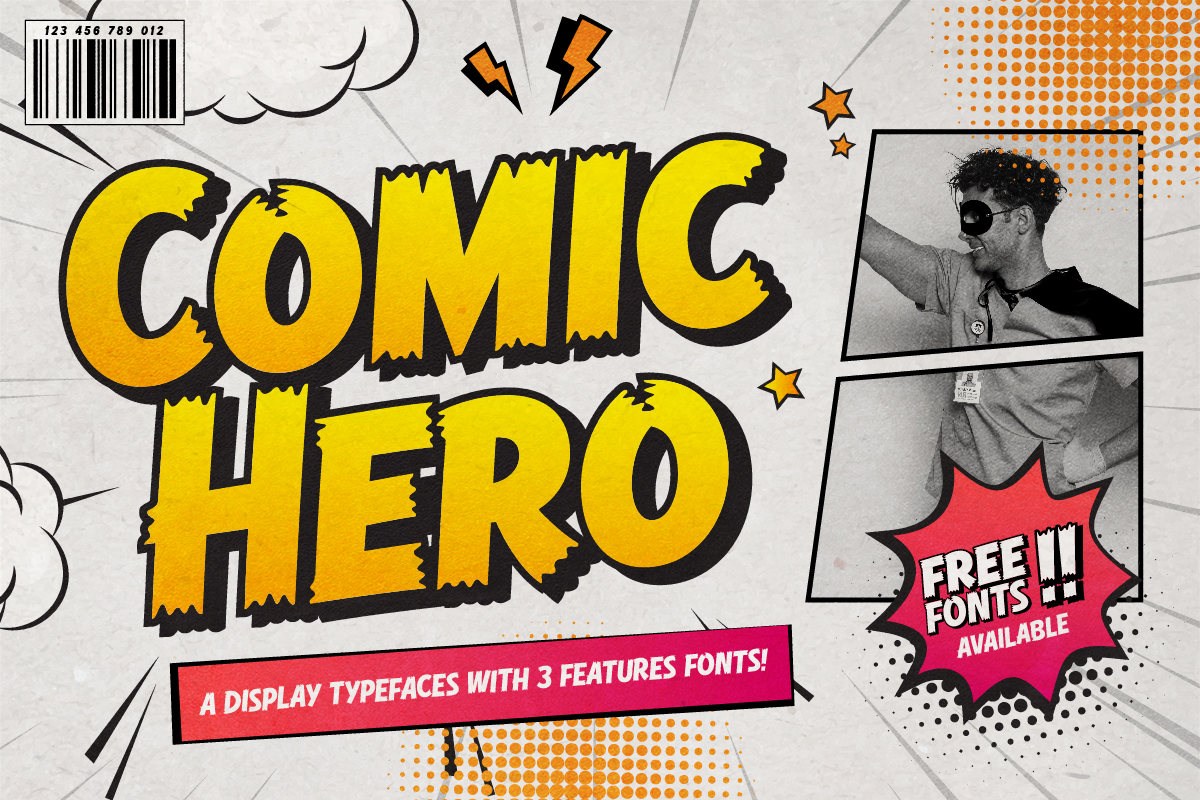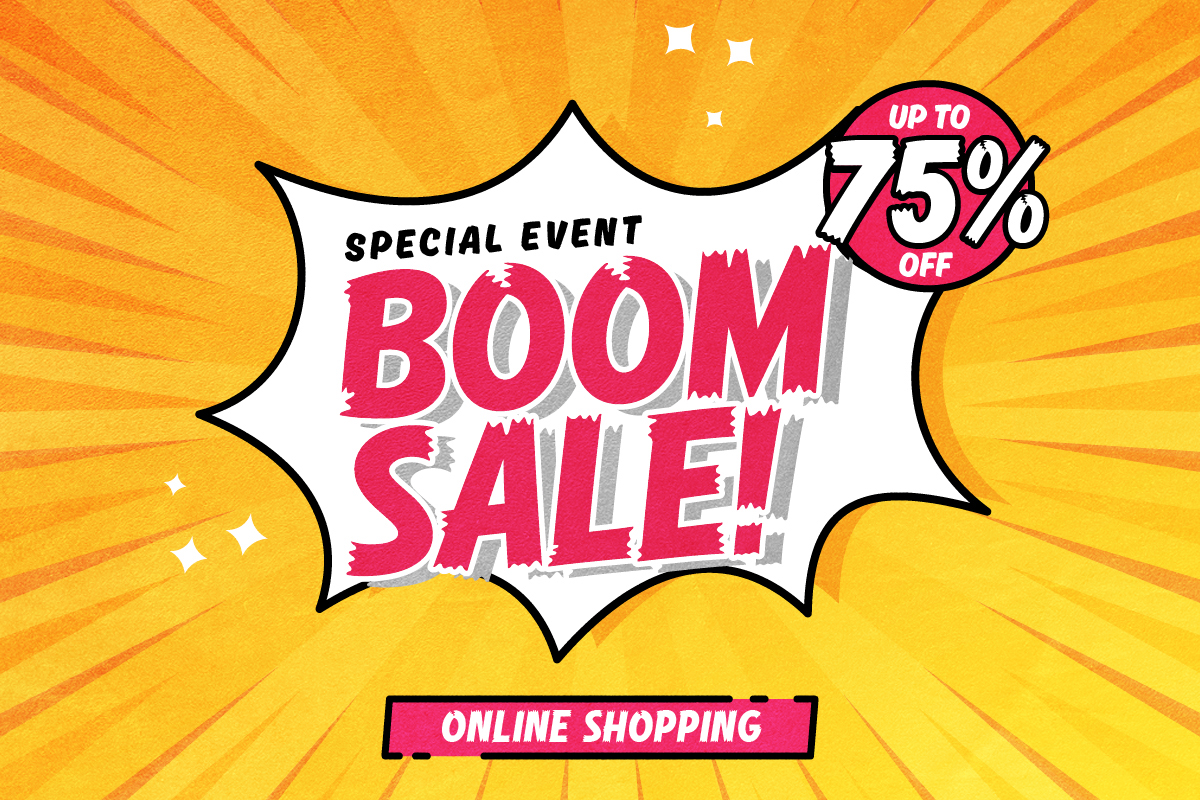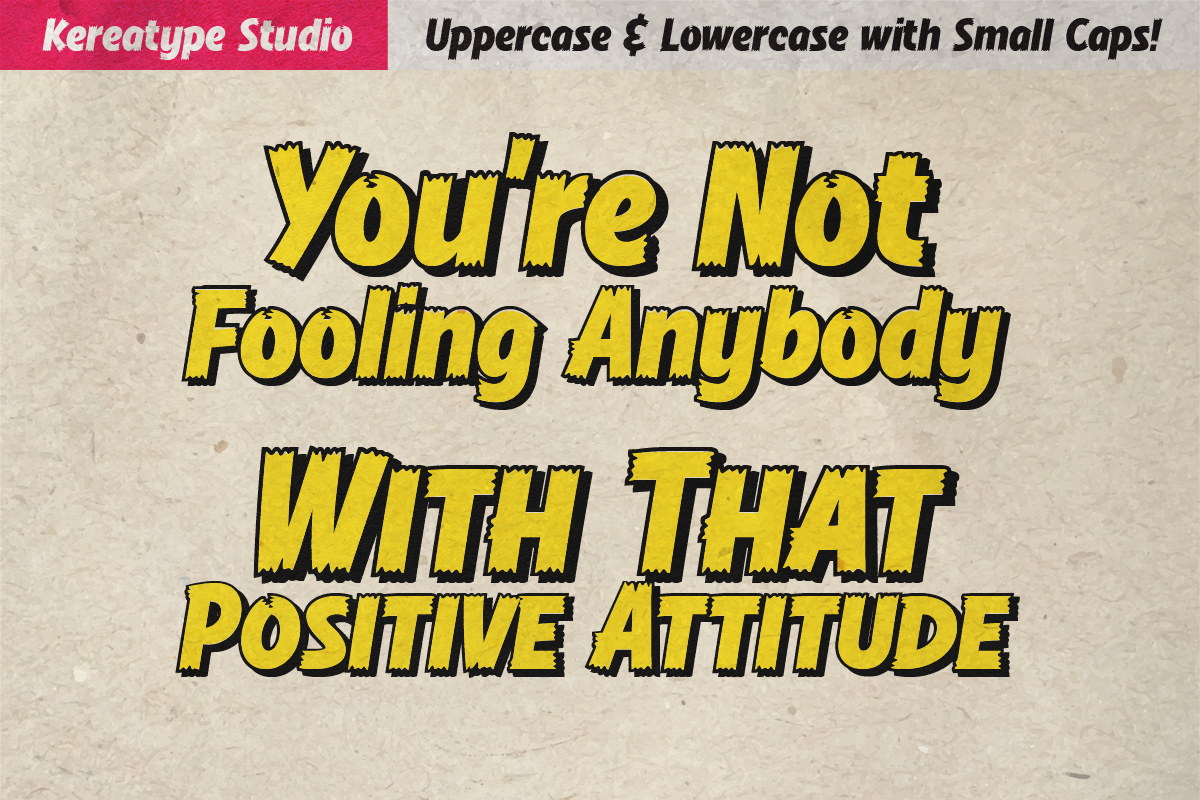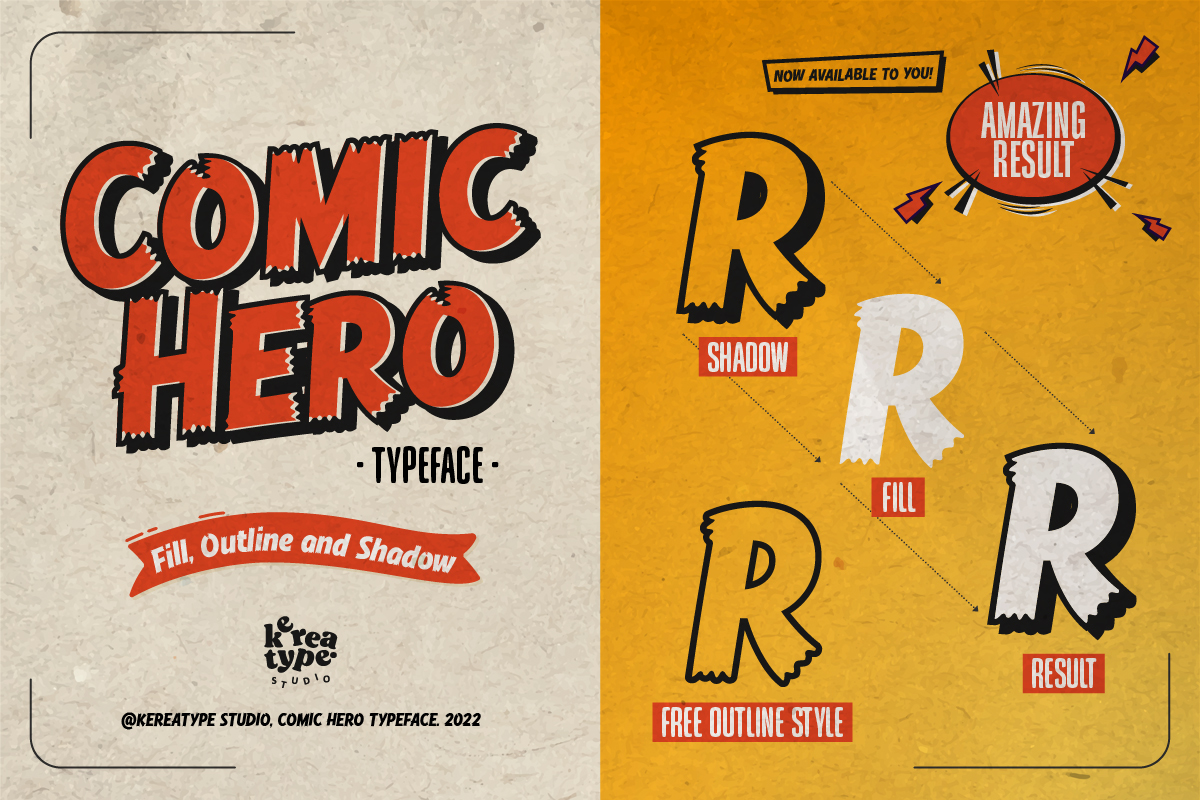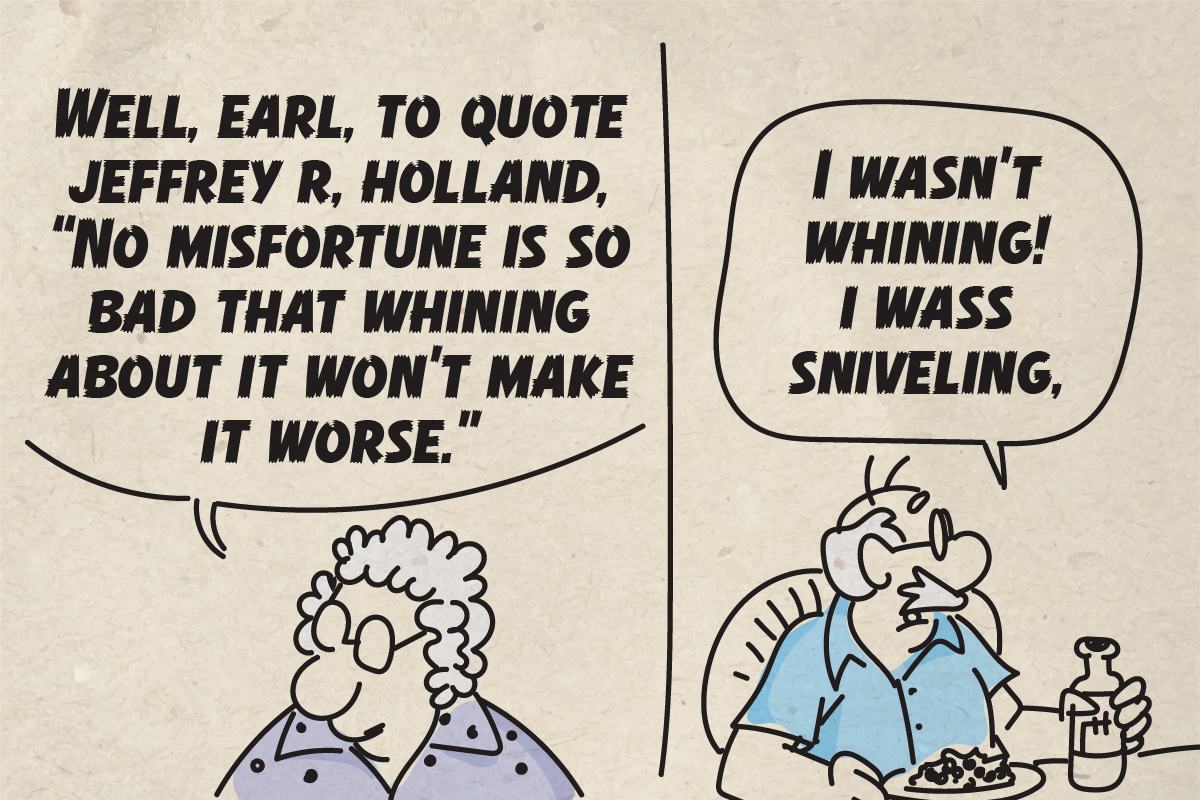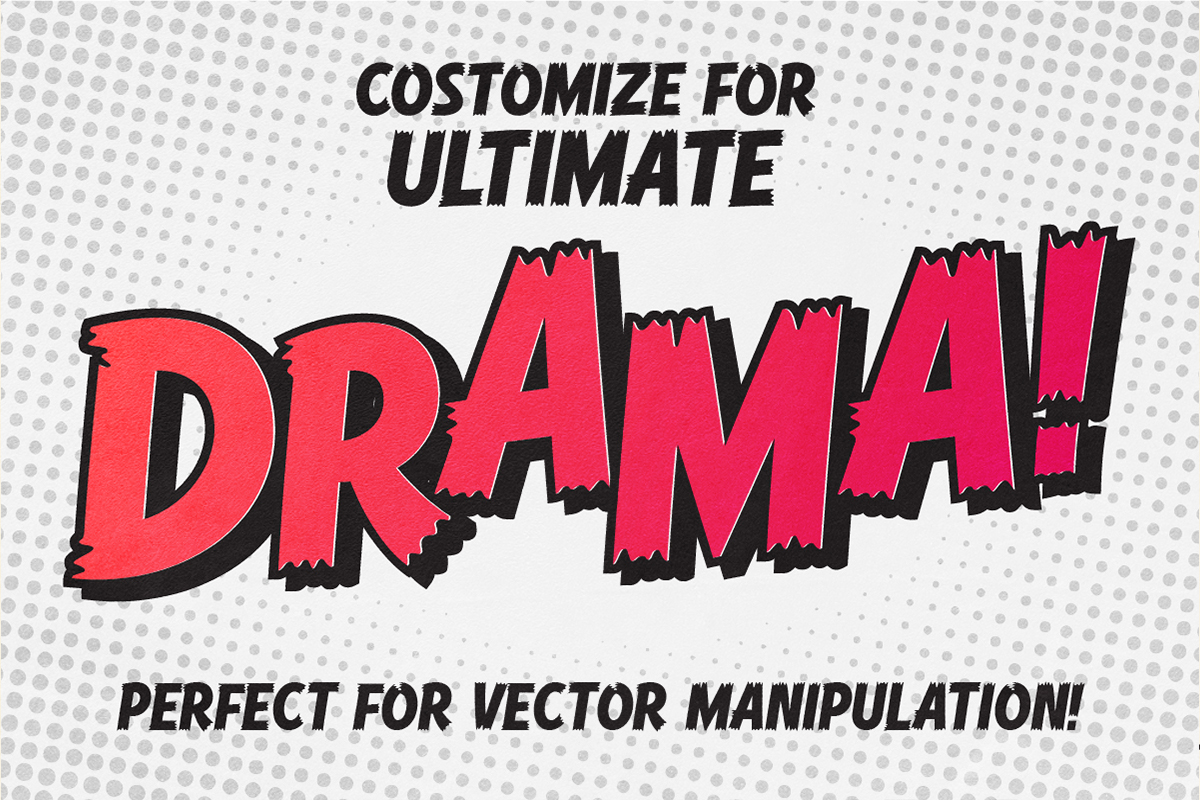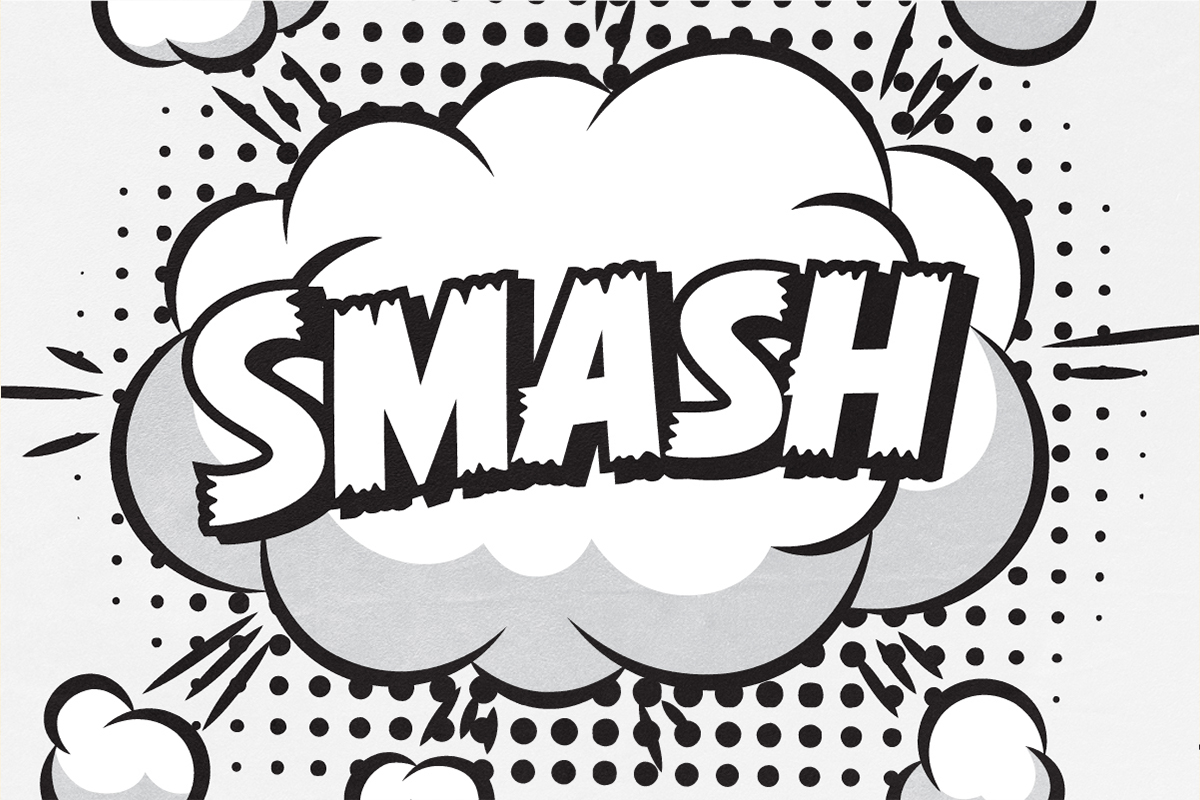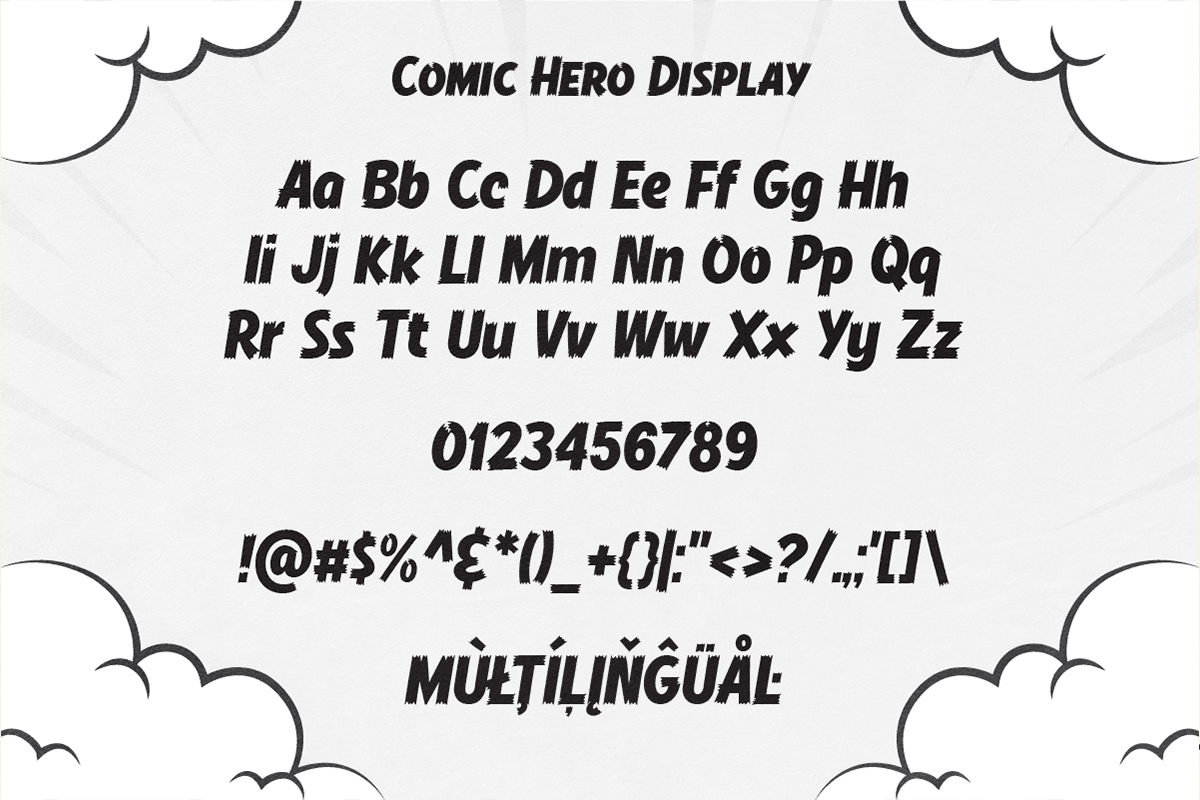
Comic Hero
Bold Heroic Layered Comic Aesthetic
Comic Hero is a bold, dynamic display family inspired by the electrifying world of vintage comics and heroic pop art culture. Featuring a flexible layering system with Fill, Outline, and Shadow styles, this font captures the classic spirit of action-packed storytelling through chunky letterforms and energetic movement. It is the ultimate sidekick for high-impact comic book titles, children’s products, and vibrant merchandise, ensuring your message jumps off the page with unbeatable readability. Whether you are designing for gaming, YouTube thumbnails, or retro pop posters, Comic Hero delivers a powerful presence that brings epic flair and legendary excitement to every project.